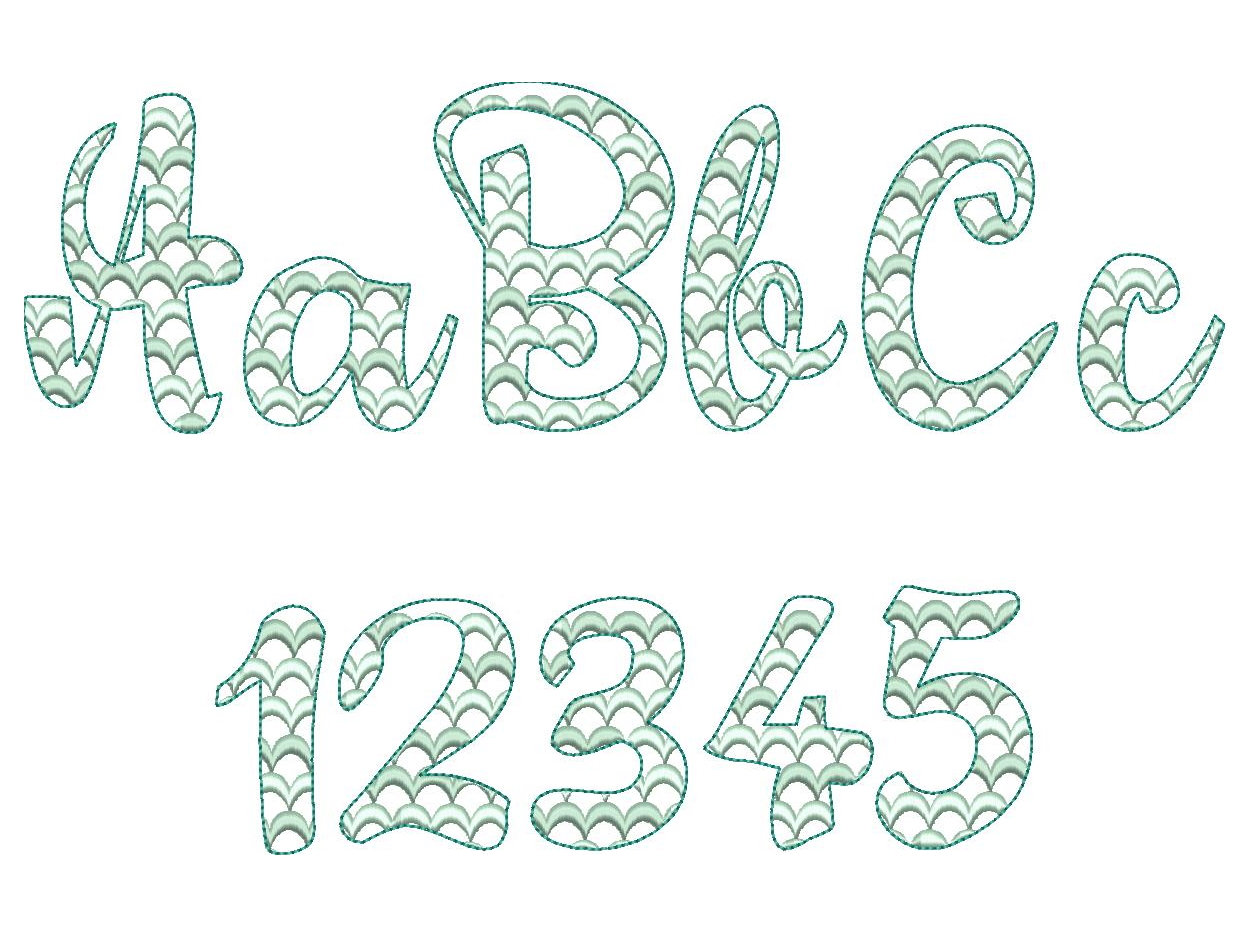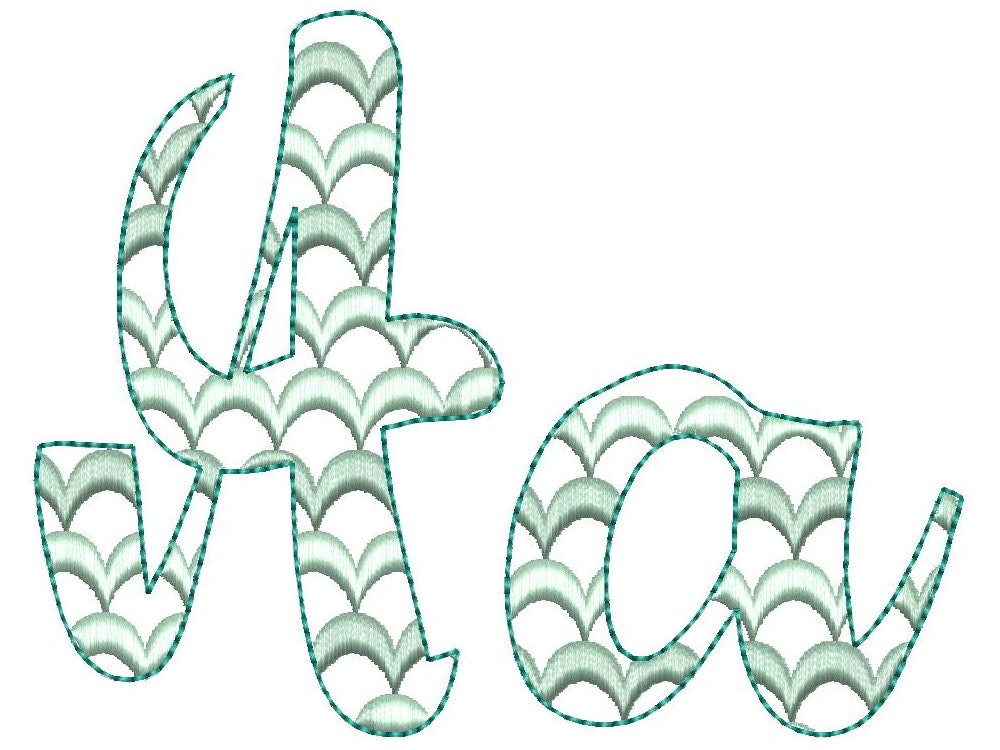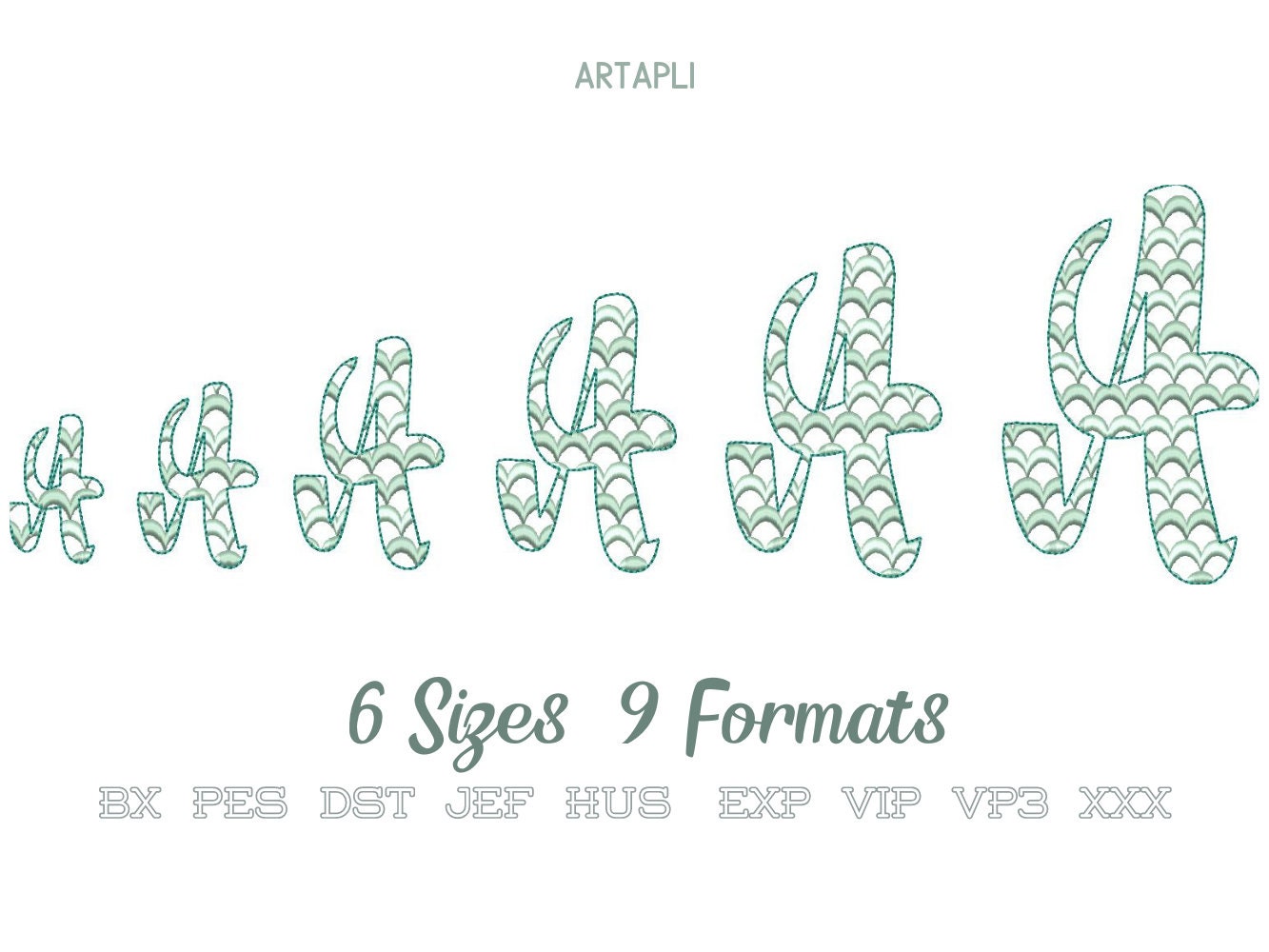
Satin Stitch Scallop Font 2 two colors script cursive alphabet machine embroidery designs in assorted sizes scalloped letters kids name font
The font is transparent and has satin stitch scallops and a light bean stitch outline.